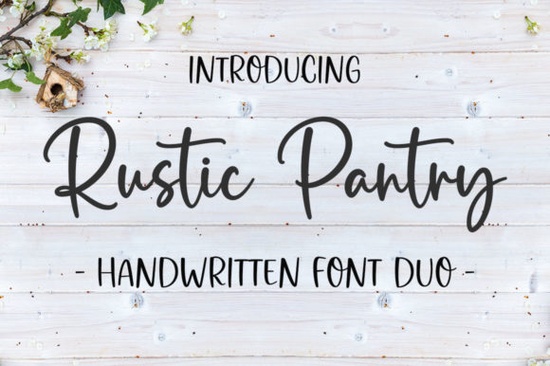
If you're looking for a handwritten font that feels warm, personal, and quietly refined without being overly ornate or hard to read Rustic Pantry Font fits naturally into many real-world design projects. It’s not flashy, but it’s thoughtful: delicate strokes, gentle curves, and balanced spacing make it especially useful for labels, greeting cards, small-batch packaging, and digital printables where authenticity matters more than perfection.
What makes Rustic Pantry work so well for handmade and small-business branding?
Unlike some script fonts that rely heavily on dramatic flourishes or tight letter spacing, Rustic Pantry keeps things approachable. Its lowercase letters flow smoothly without excessive connections, so it remains legible even at smaller sizes say, on a jam jar label or a tea towel tag. Uppercase letters have subtle personality, with soft entry and exit strokes that suggest care rather than formality. And because it’s PUA encoded, you can access alternate characters, swashes, and ligatures directly from your design software (no need for glyph panels or workarounds), which saves time when fine-tuning a logo or custom quote graphic.
This kind of flexibility is especially helpful if you’re designing for craft fairs, Etsy listings, or local farmers’ markets places where customers respond to sincerity over polish. Think: a “Hand-poured Soy Candle” sticker, a “Small Batch Honey” label, or a seasonal newsletter header for your garden shop. Rustic Pantry doesn’t shout; it invites.
How does it compare to other popular script fonts on Creative Fabrica?
It shares some DNA with Allura Signature Font, but leans lighter and airier less formal signature, more handwritten note left on your kitchen counter. Compared to Sweetica Font, Rustic Pantry has less bounce and more consistency in stroke weight, making it easier to pair with clean sans-serif typefaces. If you’ve used Aurelia Font before, you’ll notice Rustic Pantry has fewer dramatic ascenders and descenders, so it sits more comfortably beside body text or minimalist layouts.
It’s also gentler than Heartberry Font which tends toward playful charm and more restrained than Honey Notes Font, whose looping energy works beautifully for invitations but can feel busy on product tags or social media thumbnails. Rustic Pantry occupies a calm middle ground: expressive enough to carry meaning, quiet enough to stay out of the way.
Where do designers actually use this font?
- Food & beverage labels: Jams, syrups, coffee blends, and artisanal pantry goods benefit from its organic, hand-crafted feel.
- Digital printables: Recipe cards, meal planners, and weekly menu templates gain warmth without sacrificing clarity.
- Wedding stationery: Especially for rustic, garden, or farmhouse-style events think place cards, signage, or “Thank You” notes.
- Social media graphics: Instagram story quotes, Pinterest pins, or Etsy banner headers where readability and tone both matter.
- Small business branding: Not as a full logo system, but as a supporting script element alongside a simple sans-serif or serif primary font.
One thing to keep in mind: Rustic Pantry shines brightest when given room to breathe. Avoid cramming it into narrow columns or pairing it with other highly decorative fonts. A light background, generous line spacing, and careful kerning go a long way.
Need inspiration? Try these pairings
For food-related designs, try pairing Rustic Pantry with Rustic Pantry Font and a neutral, slightly rounded sans-serif like Quicksand or Nunito. For wedding work, combine it with a classic serif such as Playfair Display or Cormorant Garamond just keep the serif in title case or all caps to let the script shine in body text. And if you’re building a cohesive brand kit, test how the font looks in both light and bold weights (if available) across different file formats especially SVG for cutting machines or PDF for print-ready files.
Remember: great typography isn’t about picking the most elaborate option it’s about choosing the one that supports your message, not overshadows it. Rustic Pantry works because it feels intentional, not incidental.